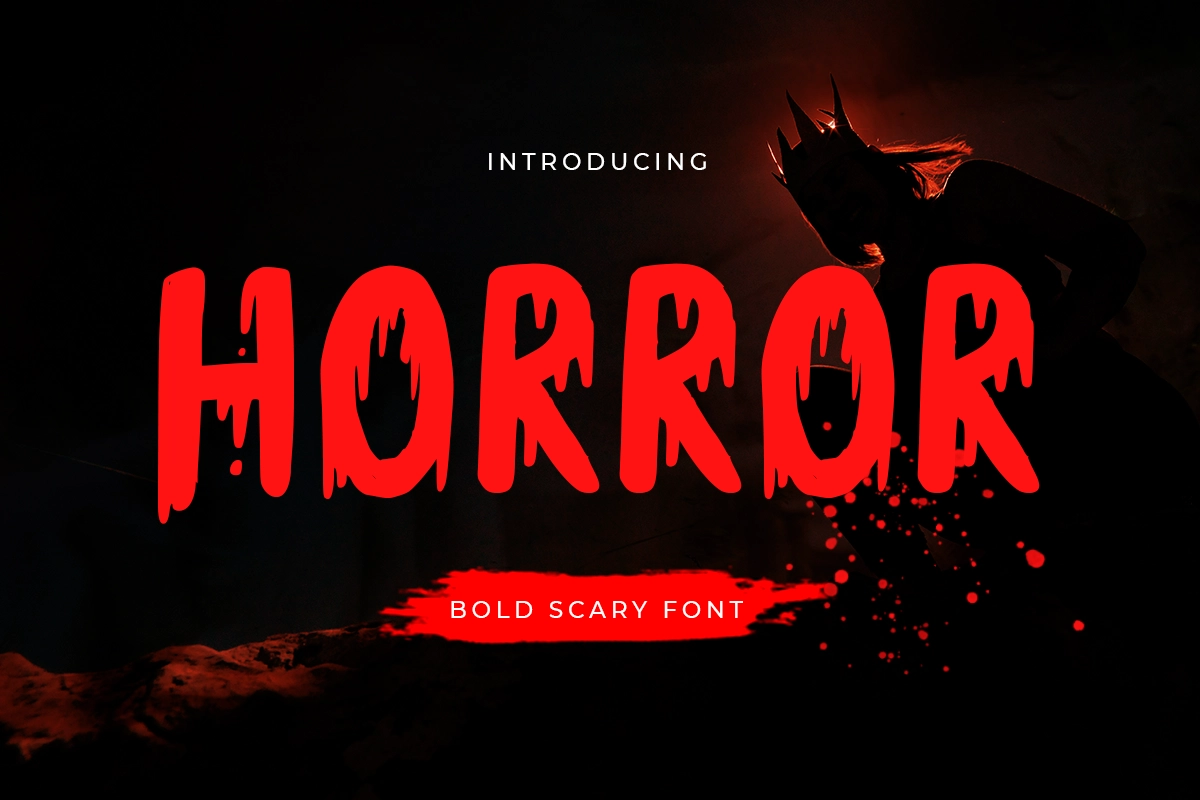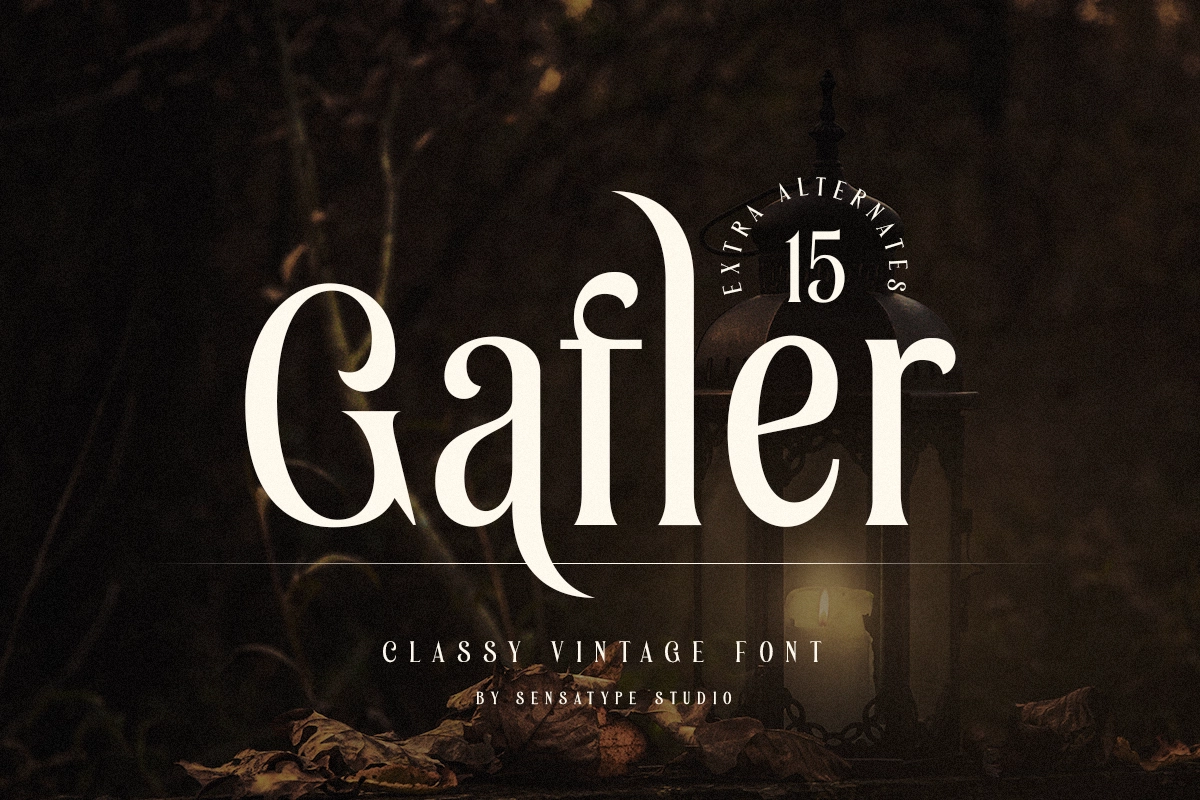
October 2026 Design Ideas, Holidays, and Font Inspiration
October 2026 is a bold and atmospheric month for seasonal design, offering exciting opportunities for graphic designers, brand teams, and content creators to create immersive, thematic, and emotionally engaging campaigns. With key moments like World Mental Health Day and Halloween, along with the broader shift into autumn visuals, October presents a rich creative range, from dark and cinematic compositions to soft awareness-driven content and warm seasonal aesthetics, making it an ideal time to explore expressive typography, layered textures, and moody color palettes that feel dramatic, memorable, and visually impactful.
October introduces a strong and distinctive visual identity. After the calm and structured tone of September, this month shifts into something more atmospheric, expressive, and emotionally engaging. It is a time where design becomes more dramatic, immersive, and storytelling-driven. For brands, creative teams, and content creators, October 2026 offers a powerful opportunity to build campaigns that feel bold, thematic, and visually memorable. Some of the most relevant design moments to pay attention to are World Mental Health Day on 10 October 2026, Halloween on 31 October 2026, and the broader seasonal shift into autumn-inspired visuals.
For designers, October has a rich and layered visual spectrum. It can feel dark and moody, playful and festive, or even calm and introspective depending on the direction. That contrast is what makes it highly flexible. One campaign can lean into cinematic horror-inspired visuals, while another can focus on soft awareness messaging or cozy seasonal aesthetics. If you are building seasonal content, October gives you the freedom to experiment with stronger themes and more emotional visual storytelling.
Why October?
October often works as a peak storytelling month. It is a moment where visuals are allowed to be more expressive, symbolic, and concept-driven. Compared to previous months, October invites designers to push creative boundaries and explore more immersive design directions.
From a design perspective, this month supports high-contrast compositions, bold typography, layered textures, and atmospheric color palettes. It works well for awareness campaigns, seasonal promotions, entertainment visuals, and narrative-driven content. October is not just about decoration. It is about creating a visual experience that feels intentional and engaging.
For lifestyle, entertainment, beauty, and creative brands, October is especially valuable because it allows for stronger visual identity exploration. There is more room to experiment with tone, mood, and concept while still maintaining clarity. Typography becomes more expressive, often acting as a key visual element rather than just a supporting component.
Best Alternative Fonts For October
Hello Spooky - Horror Halloween Font
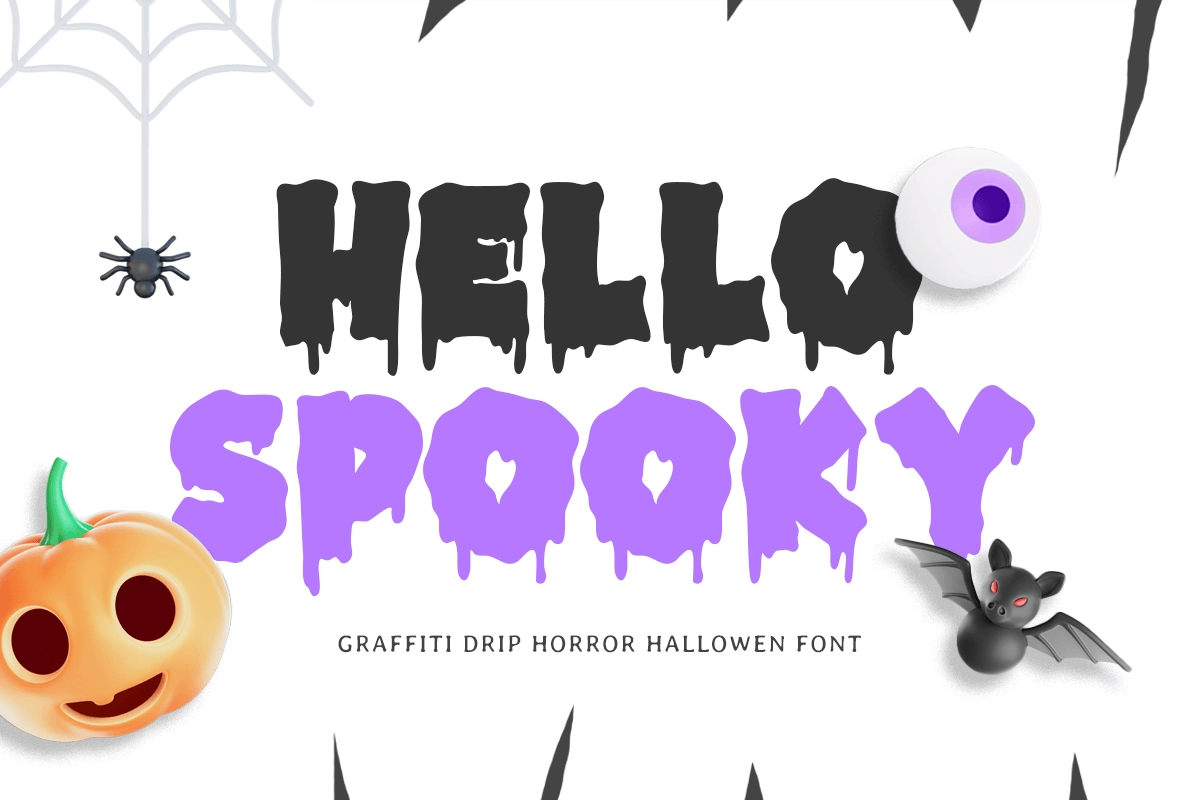
Hello Spooky is a horror Halloween font designed to capture the essence of spooky, playful, and eerie visuals. With its irregular shapes and haunting character, this typeface is perfect for Halloween campaigns, posters, and themed social media content. It instantly creates a strong seasonal identity that feels fun yet mysterious.
Horror - Bold Scary Font
Horror is a bold scary font built to deliver dramatic and intense visual impact. Its strong and aggressive letterforms make it ideal for headlines, horror-themed designs, and attention-grabbing layouts. This typeface works best when you want your design to feel powerful, dark, and impossible to ignore.
Gafler - Classy Vintage Font
Gafler is a classy vintage font that blends retro charm with a refined and timeless aesthetic. Its distinctive style makes it suitable for autumn-themed visuals, branding, and editorial layouts. It offers a softer contrast to Halloween-heavy designs, allowing for more elegant and nostalgic storytelling.
Befira - Feminine and Beauty Script Font
Befira is a feminine and beauty script font crafted to bring elegance, softness, and a touch of luxury into your designs. With its flowing strokes and graceful curves, this typeface is perfect for beauty branding, lifestyle content, and curated seasonal visuals. It balances October’s darker tones with a more refined and delicate expression.
Autumn - Unique Display Font
Autumn is a unique display font designed to reflect the warmth and character of the fall season. With its creative letterforms and stylish appearance, this typeface works well for seasonal campaigns, packaging, and creative branding. It captures the cozy and aesthetic side of October while maintaining strong visual presence.
11 in 1 Ultimate Halloween Font Bundle
The 11 in 1 Ultimate Halloween Font Bundle offers a complete collection of spooky and decorative typefaces designed specifically for Halloween-themed projects. This bundle provides a wide range of styles, from playful to terrifying, making it highly versatile for posters, branding, social media, and event promotions. It is an efficient choice for designers who want flexibility and variety within a single seasonal package.
For designers, that means October is not a subtle month. It is expressive, atmospheric, and concept-driven. If you approach it with strong visual storytelling, bold typography, and intentional mood setting, it can become one of the most impactful moments in the design calendar.